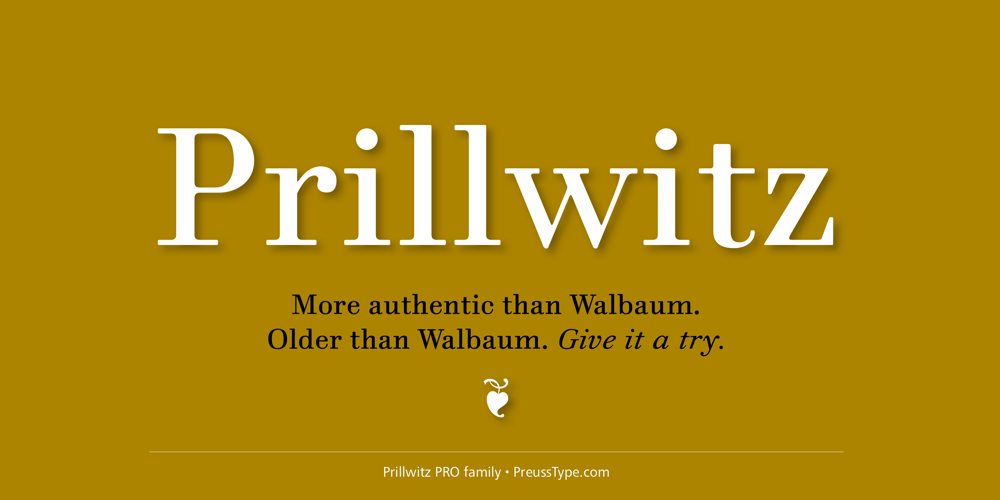
Prillwitz Pro Font Family was designed by Ingo Preuss, Johann Carl Ludwig Prillwitz and published by preussTYPE. Prillwitz Pro contains 12 styles and family package options. Johann Carl Ludwig Prillwitz, the German punch cutter and type founder, cut the first classic Didot letters even earlier than Walbaum. The earliest proof of so-called Prillwitz letters is dated 12 April 1790. Inspired by the big discoveries of archaeology and through the translations of classical authors, the bourgeoisie was enthused about the Greek and Roman ideal of aesthetics. The enthusiasm for the Greek and Roman experienced a revival and was also shared by Goethe and contemporaries. »Seeking the country of Greece with one’s soul«. All Literates who are considered nowadays as German Classics of that time kept coming back to the Greek topics, thinking of Schiller and Wieland. The works of Wieland were published in Leipzig by Göschen. Göschen used typefaces which had been produced by until then unknown punch cutter. This punch cutter from Jena created with these typefaces master works of classicist German typography. They can stand without any exaggeration on the same level as that of Didot and Bodoni. This unknown gentleman was known as Johann Carl Ludwig Prillwitz. Prillwitz published his typefaces on 12th April 1790 for the first time. This date is significant because this happened ten years before Walbaum. Prillwitz was an owner of a very successful foundry. When the last of his 7 children died shortly before reaching adulthood his hope of his works was destroyed, Prillwitz lost his will to live. He died six months later. His wife followed him shortly after. The typeface Prillwitz as a digital font was created in three optical styles (Normal, Book and Display). The typeface Prillwitz Press was created especially for a printing in small sizes for newspapers. »Prillwitz Press« combines aesthetic and functional attributes which make written text highly readable. It was originally designed for a newspaper with medium contrast to withstand harsh printing conditions. Its structure is quite narrow which makes this typeface ideal for body text and headlines where space is at premium. For the Normal – even more for the Book – a soft and reader-friendly outline was created through a so-called »Schmitz« and optimized in numerous test prints. The arris character and the common maximal stroke width contrast of the known classicist typefaces (Didot/Bodoni) were edited by the study of the original prints. This was also done in order to reach a very good readability in small type sizes. This typeface is perfectly suited to scientific and belletristic works. Accordingly it has three styles: Regular, Bold and Italic as Highlighting (1). The typeface Prillwitz is a complete new interpretation and continuing development of the conservated originals from 1790. They have been kept in the German Library in Leipzig. It was always given the priority to keep the strong roughness and at the same time optimizing the readability of this striking font. The type family has all important characters for an efficient and typographic high quality work. ———– (1) Accentuation of particular words or word orders (e.g. proper names, terms etc.). Typographic means for Highlighting could be Italic, SmallCaps or semi-bold.